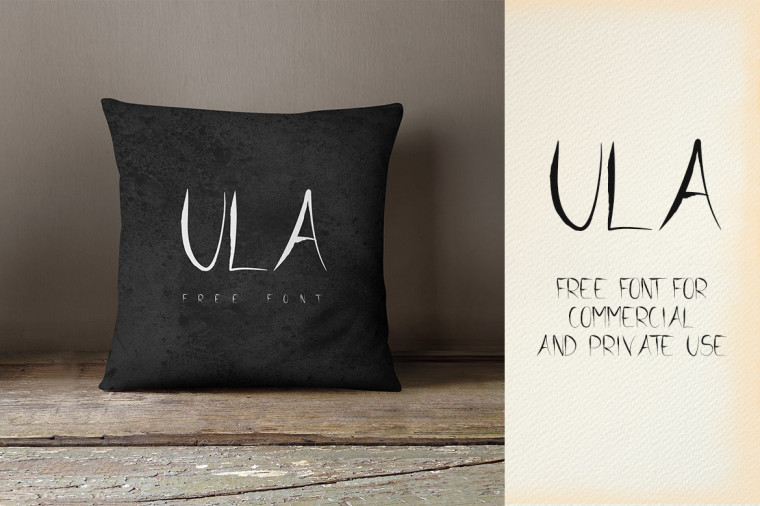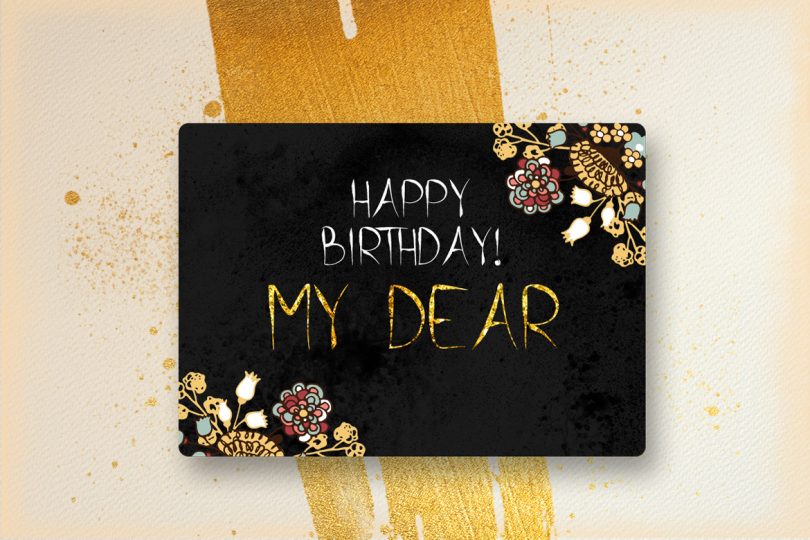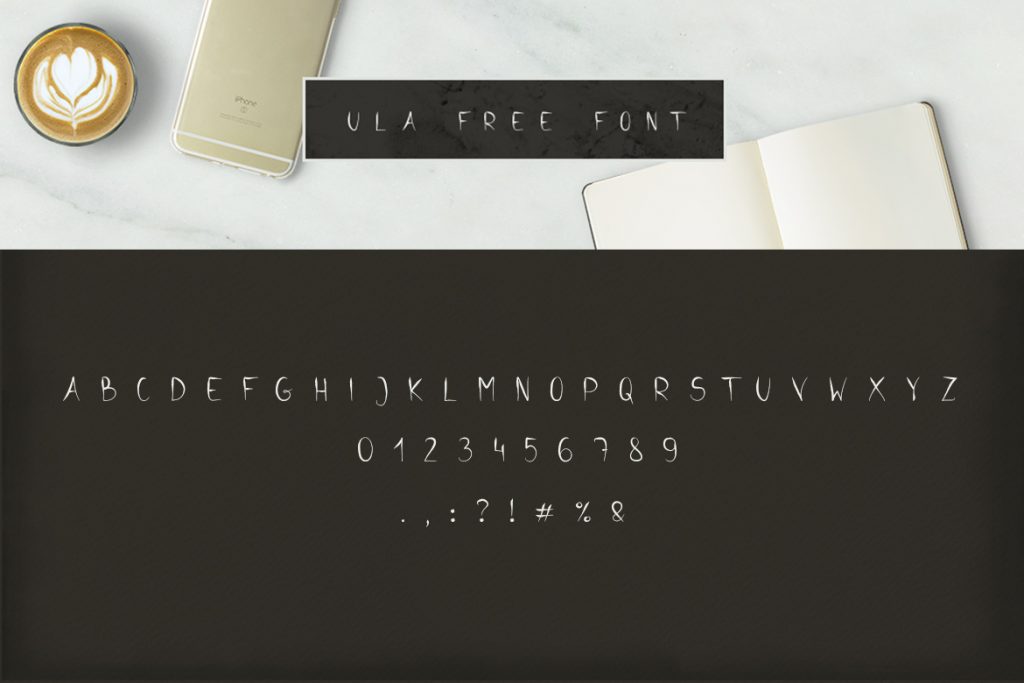
ULA is a cool and free hand-drawn font. This free typeface is a simple and handy display font that can be used on various design projects. Your designs would look awesome with the appropriate use of ULA font. Its free for personal and commercial use. Download, share and enjoy using this great free font.